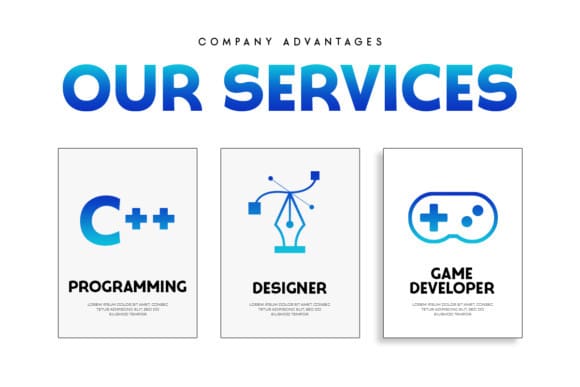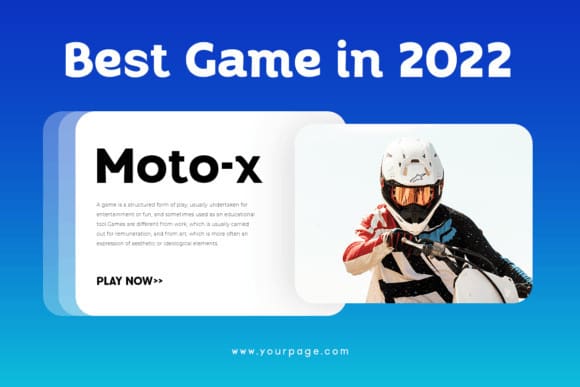
Seagul Font
Seagul Font a new San Serif Font that we created specially for Headlines, Titles, and more stand-out typography needs. It’s so perfect to add your style and headline overview. And especially for the Headline font, we crafted it for a unique style and modern feel so enjoy creating any project that will show your main idea.